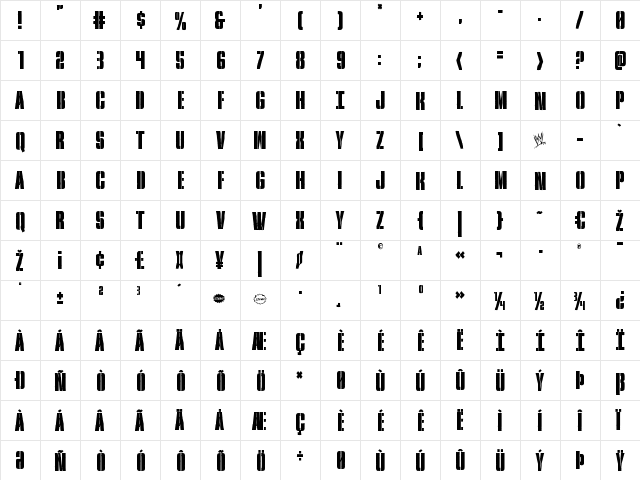
Rumble Tumble Condensed Condensed
Design Context for Rumble Tumble Condensed Typeface
Rumble Tumble Condensed is a composed and adaptable typeface that performs quietly and consistently across a wide range of design contexts. The condensed width makes it efficient for tight spaces without sacrificing legibility.